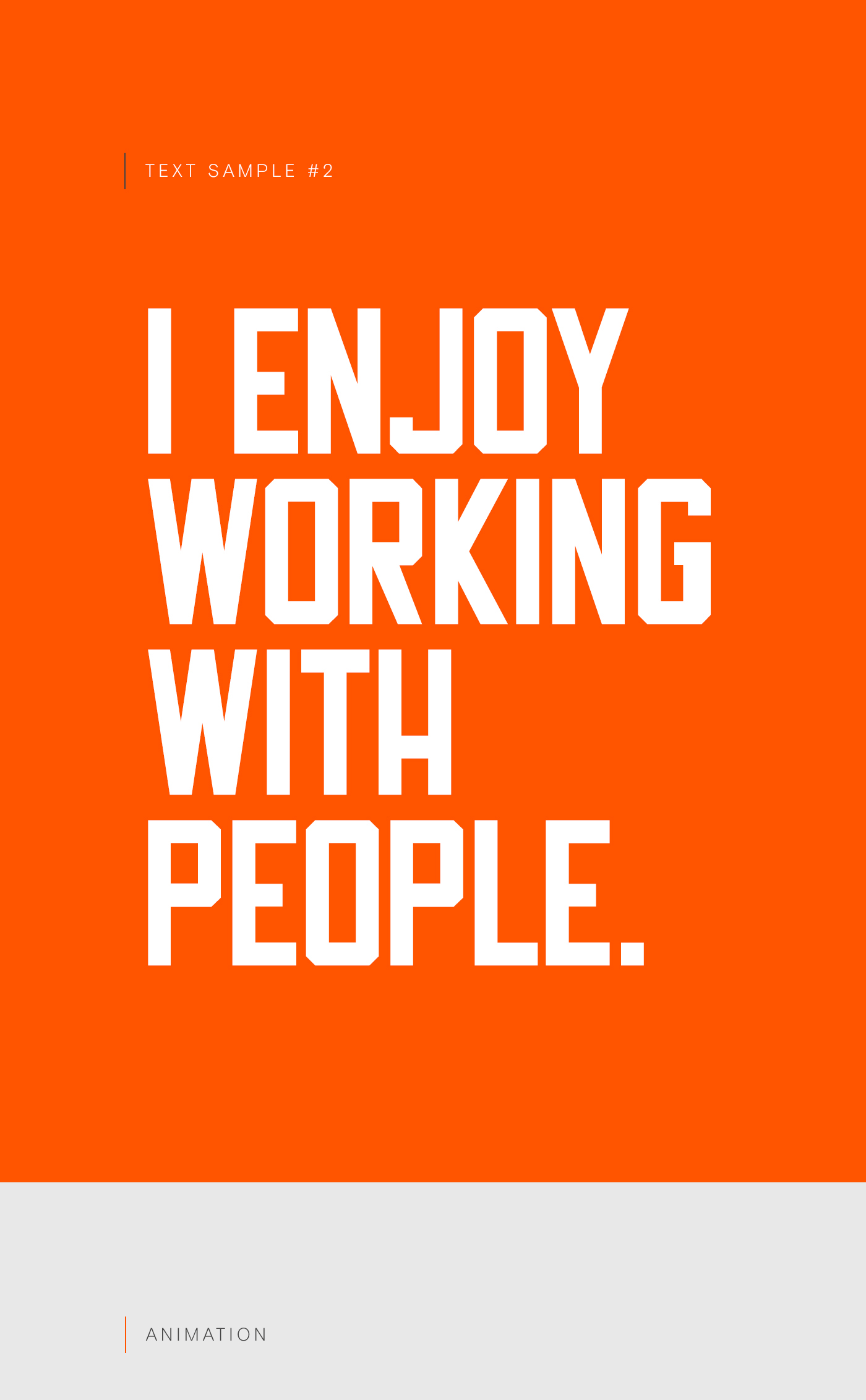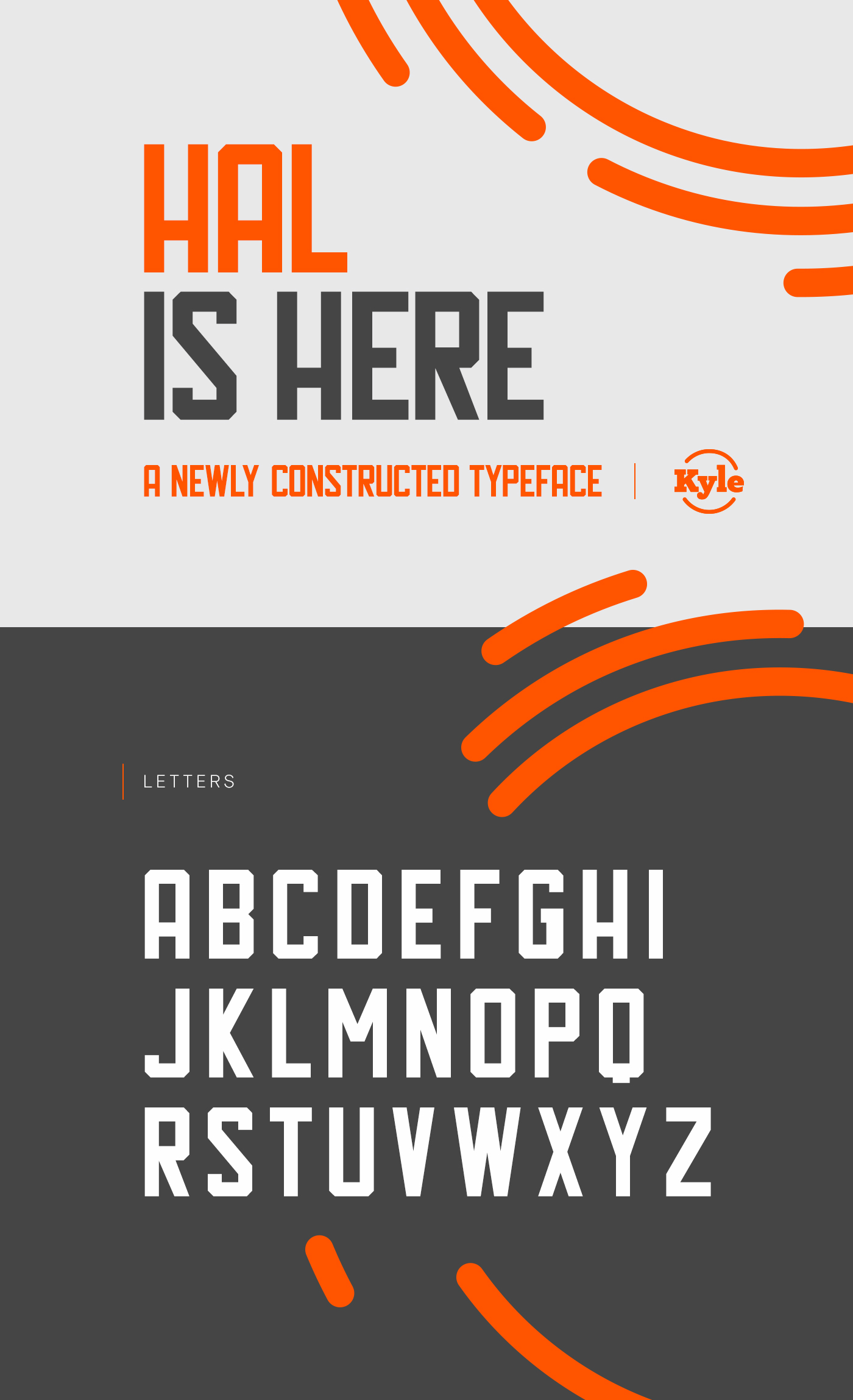
Hal Typeface
A new geometric typeface, introduced Hal typeface. Hal is a free font is designed and shared by Kyle Robertson. Hal is a Sans Serif font typeface, inspired by the electronic digits, it only has one weight, but full of character and supports many different lang.